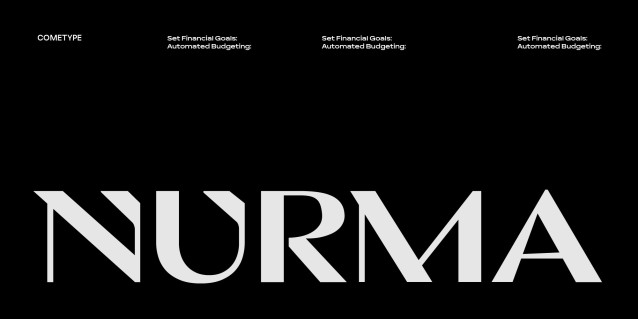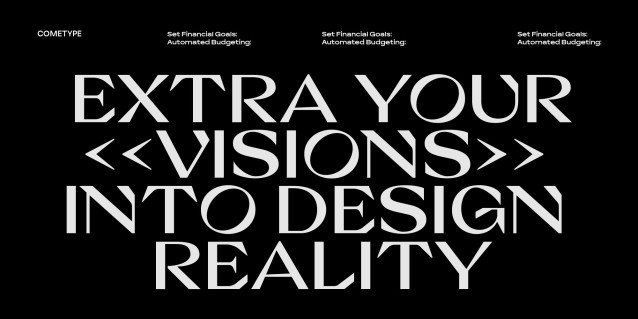
Nurma Font is a modern and dynamic urban display font, available in 2 weights: Regular and Bold for flexibility in design hierarchy. Providing a trendy and bold feel with bold and confident capital letters, Nurma is perfect for posters, promotional banners, branding, logos, magazine headlines, and social media designs that want to stand out. With multilingual support, this font is ready to amplify your message globally.
Nurma Font
| Designer Name: | ComeType |
| Classification: | Display Fonts, Sans Serif Fonts |